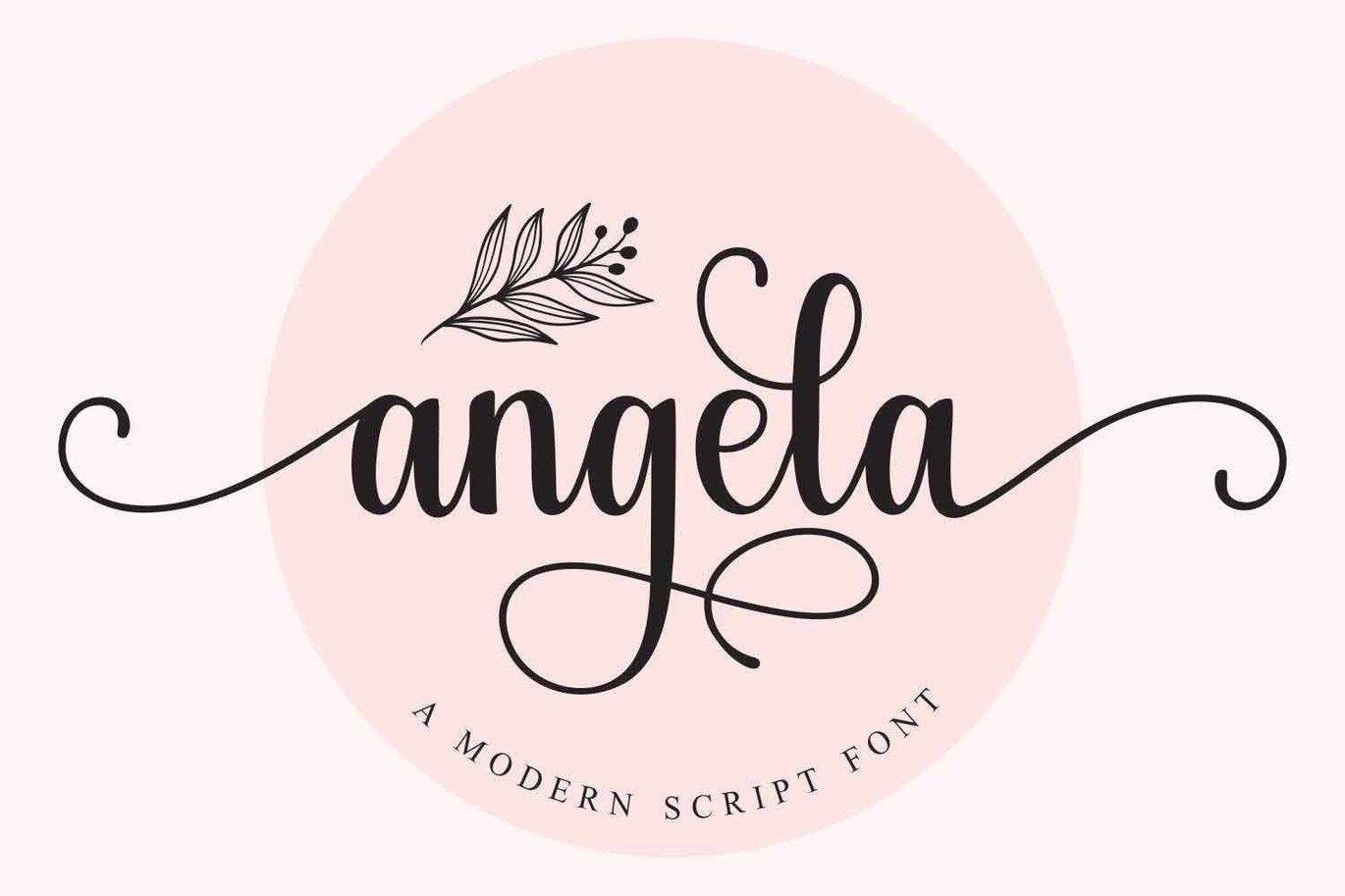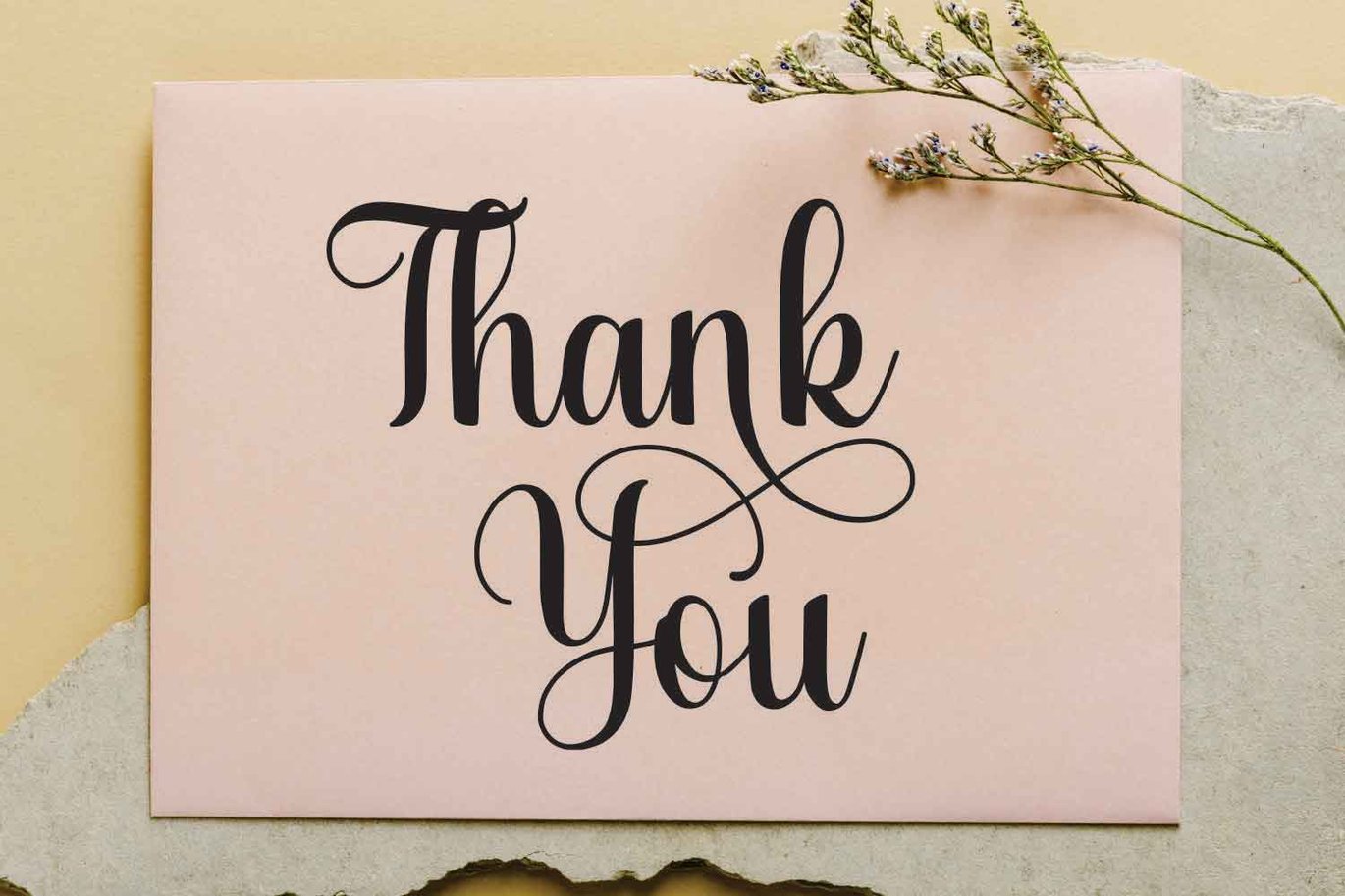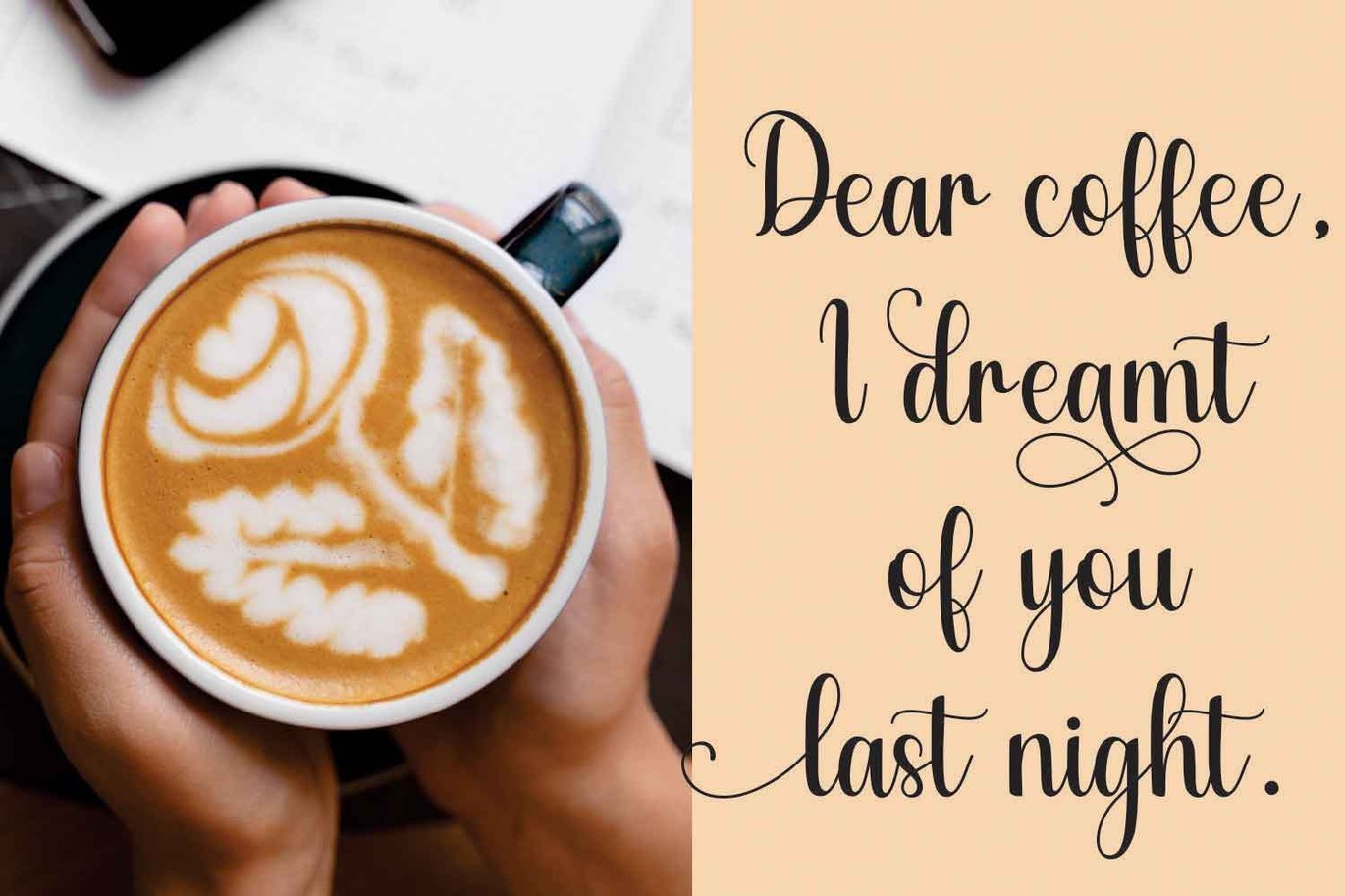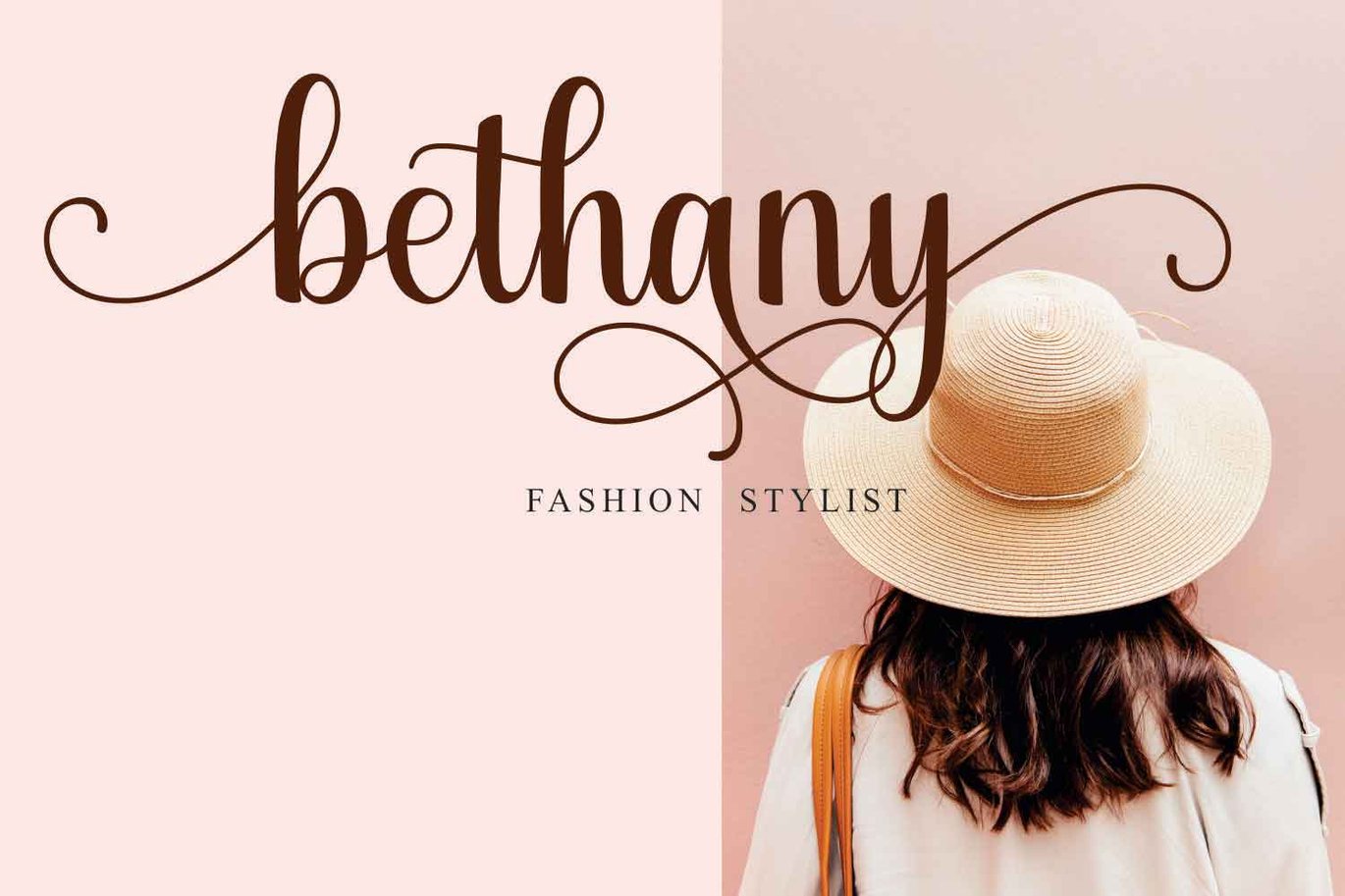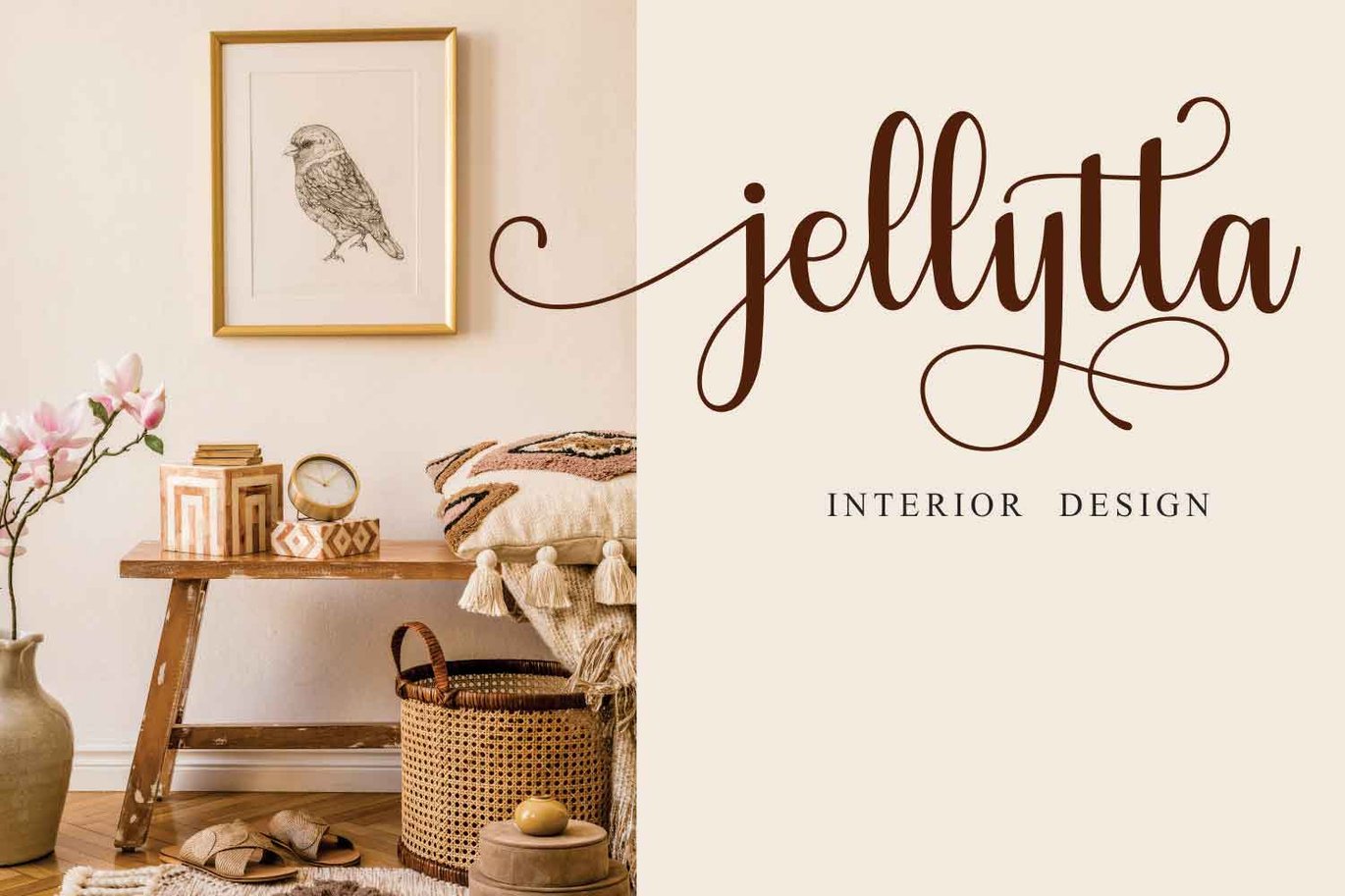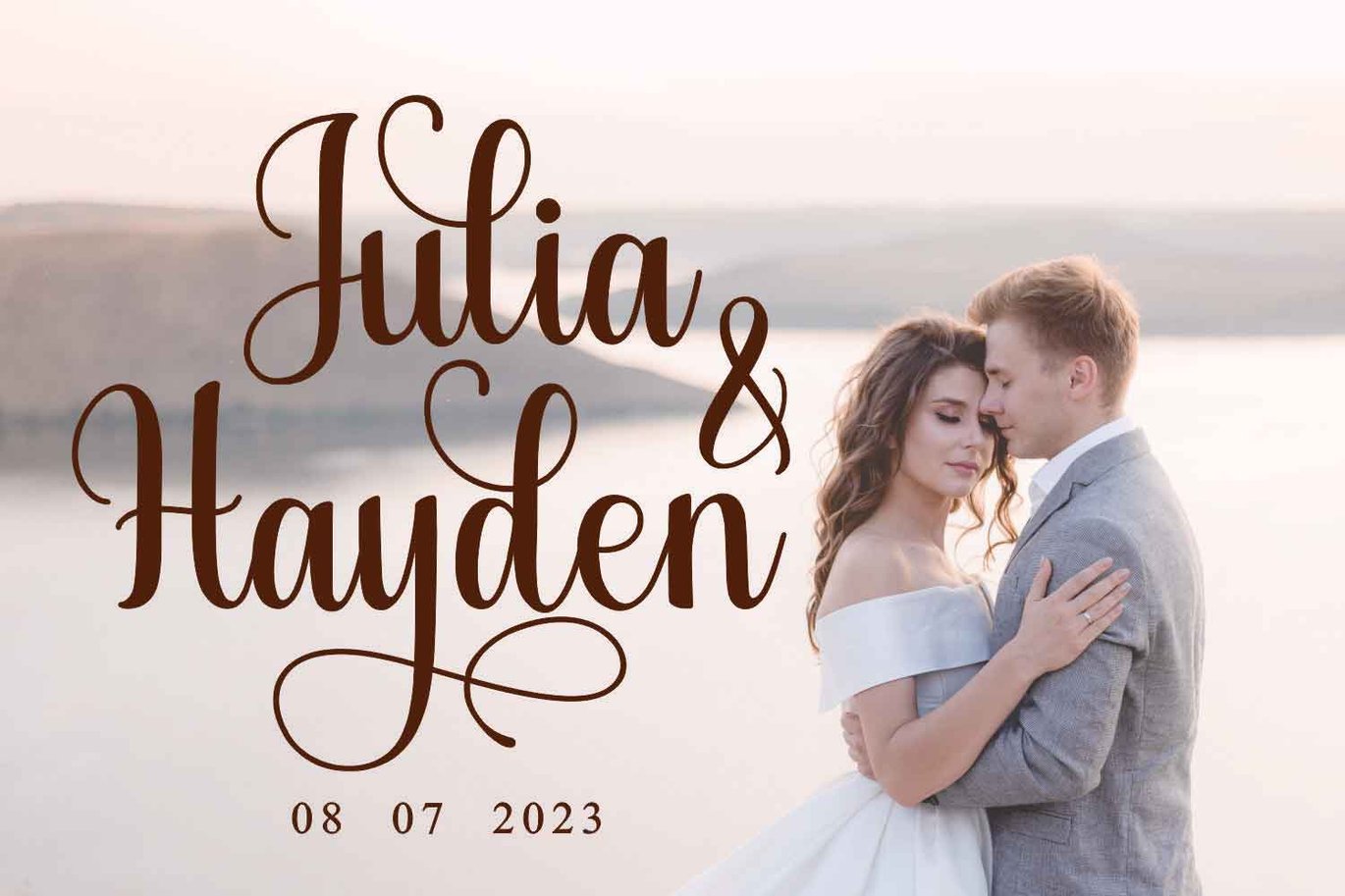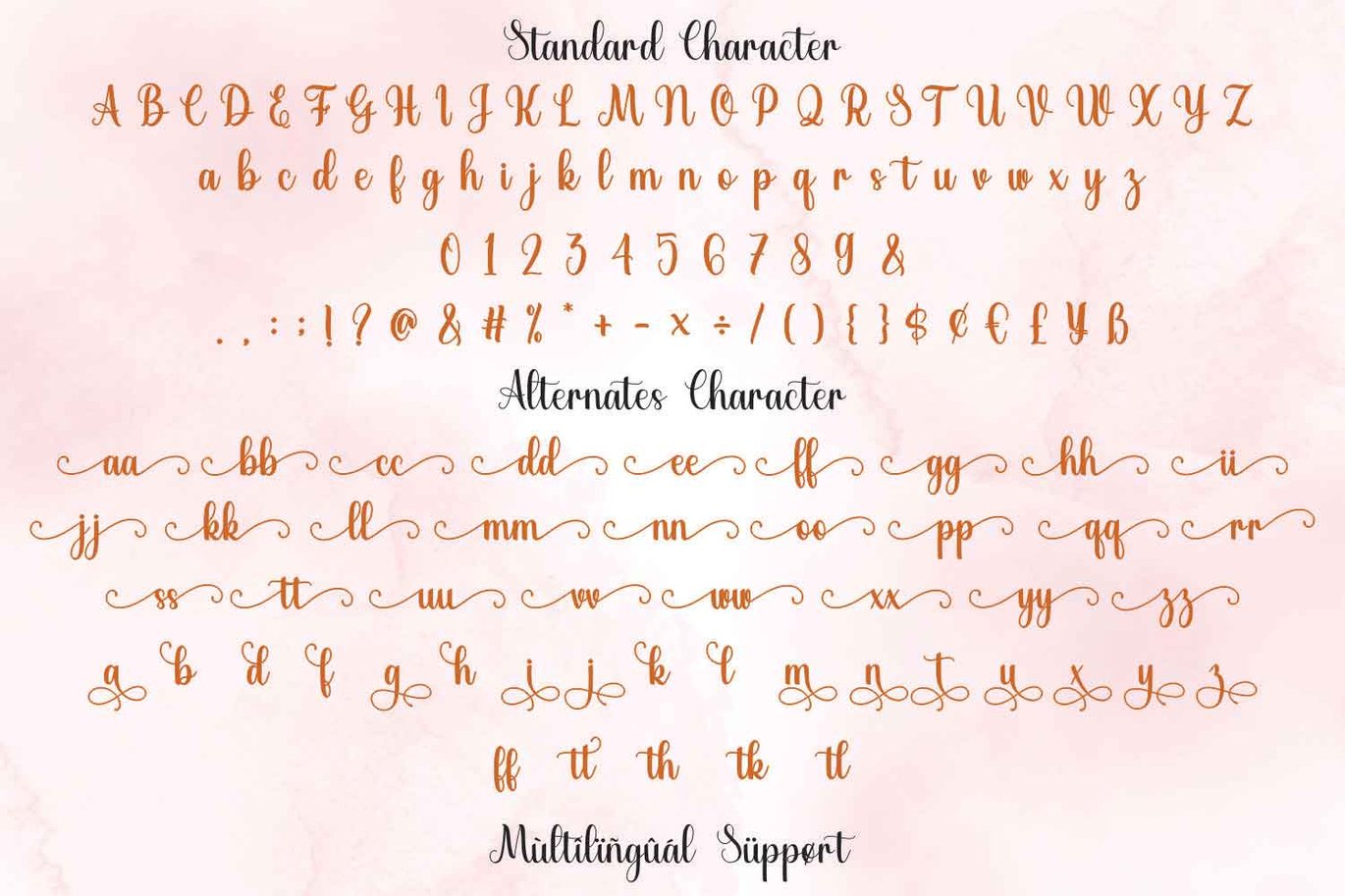
Angela – Wedding Font
Introducing Angela Modern Script Font – the ultimate choice for anyone seeking a modern script handwritten calligraphy style font. With its unique and artistic design, this font is perfect for adding a touch of elegance to any project, from branding to packaging and beyond.
Crafted with the utmost attention to detail, Angela Modern Script Font features smooth and flowing lines that give it a natural, hand-drawn feel. Its modern and sophisticated look makes it an excellent choice for a wide range of design projects, including logos, wedding invitations, business cards, and much more.
Whether you’re a professional designer or a DIY enthusiast, Angela Modern Script Font is the ideal solution for anyone looking to create stunning designs with ease. Its versatility and flexibility allow you to create beautiful designs that stand out from the crowd.
This font is PUA encoded, which means you can easily access all of the glyphs, swashes, and ligatures! It is the best choice for creating eye-catching logos, branding, and quotes. And latest style letters are perfect for wall displays, wedding invitations, social media post logos, advertisements, product packaging, product designs, labels, photography, watermarks, invitations, stationery, and any project that requires handwritten taste.